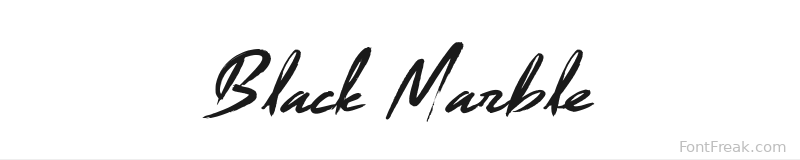
Black Marble
Black Marble is a striking display font created by BLKBK Fonts, showcasing a unique blend of elegance and modernity. This font falls into the script category, characterized by its fluid, handwritten style that mimics the natural flow of calligraphy. The strokes are bold and expressive, with a variety of weights that create a captivating contrast, making each letter feel dynamic and alive. The spacing is thoughtfully designed, allowing each character to breathe while maintaining cohesion in words and phrases.
This font is particularly well-suited for a range of creative applications. Its sophisticated flair makes it an excellent choice for wedding invitations, where it can add a personal touch to the celebration. Additionally, the Black Marble font is ideal for movie posters, capturing attention with its dramatic presence. Restaurant menus can also benefit from this font, offering a stylish and upscale appearance that reflects the ambiance of fine dining. Furthermore, it can enhance branding materials for small businesses, helping to create a memorable identity that stands out in a crowded marketplace.
Targeted towards graphic designers, small business owners, and content creators, Black Marble provides a versatile option for those seeking to elevate their projects. Its unique aesthetic appeals to anyone wanting to infuse their designs with a touch of artistry and sophistication.
In conclusion, the Black Marble font free download offers a rare combination of elegance and versatility that can enhance various design projects. Its distinctive style, paired with its expressive characteristics, makes it a standout choice in the world of typography. Whether you're looking to make a statement or add a personal touch to your designs, Black Marble is sure to impress.